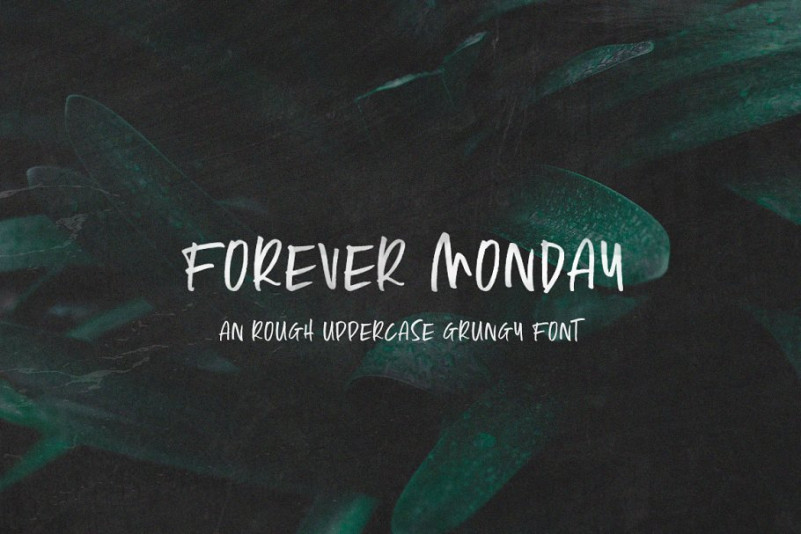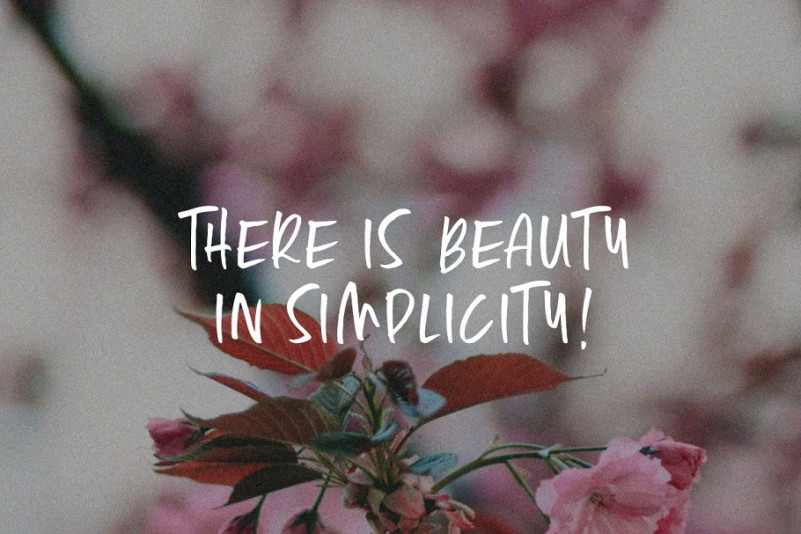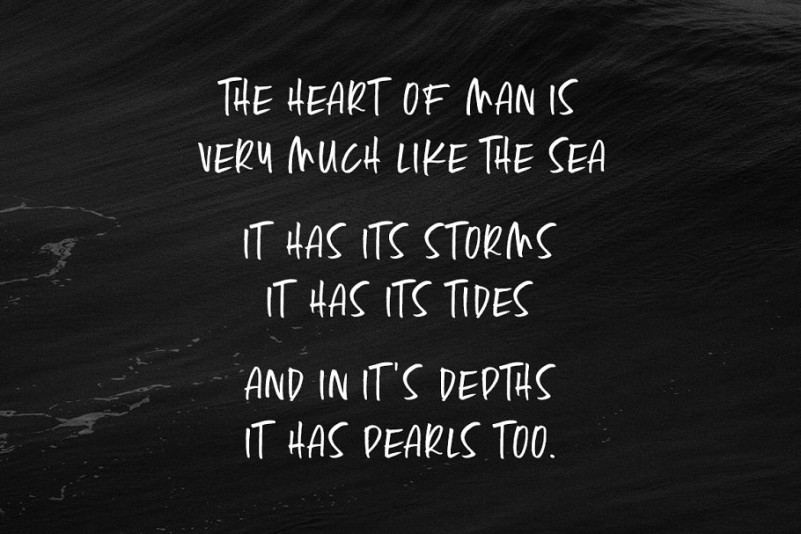
Forever Monday Font
Forever Monday.. for those times when a font can just evoke a feeling. A Monday morning, daily grind kind of feeling that is raw, edgy and a little bit grungy. Use it to show how you feel through the sweet release of design.